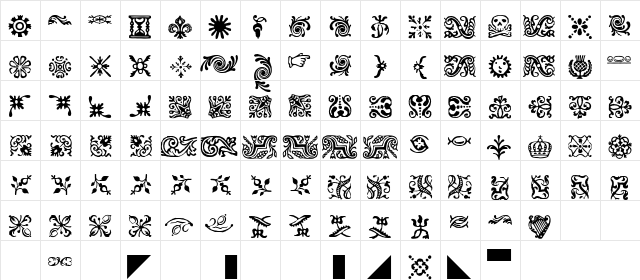
FCaslon Ornaments ITC Regular
Design Context for FCaslon Ornaments ITC Typeface
FCaslon Ornaments ITC brings ornamental detail and strong personality to headlines and identities, where visual impact matters more than quiet functionality.
Font Pairing: Pair with a clean neutral sans-serif for body copy to let FCaslon Ornaments ITC's character lead without overwhelming the composition.
Pro Tip: Treat FCaslon Ornaments ITC as the centrepiece of your typographic hierarchy. One strong heading set in a decorative face can carry an entire layout.